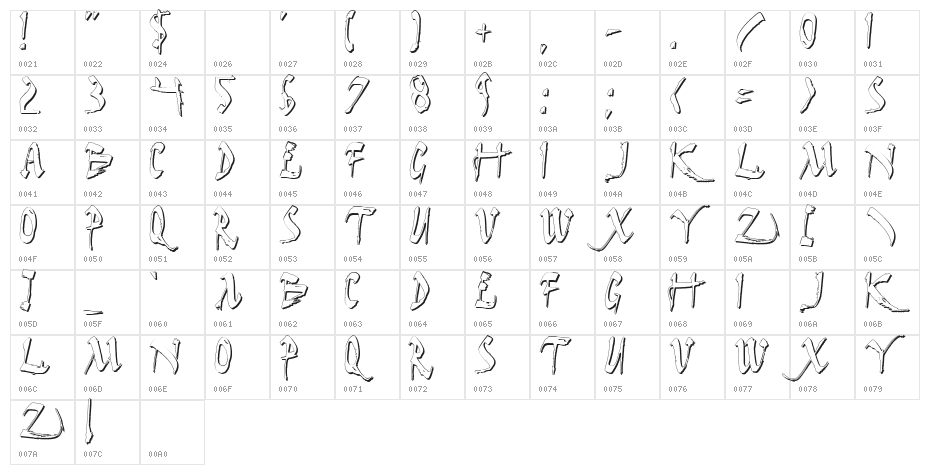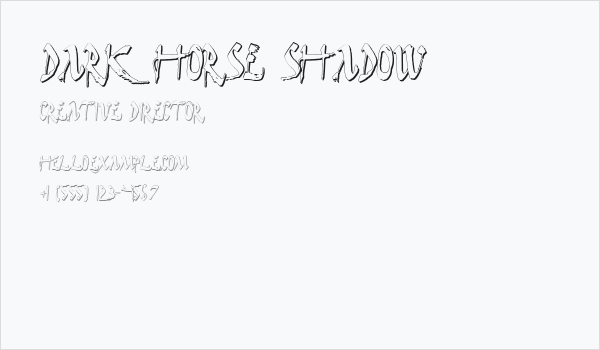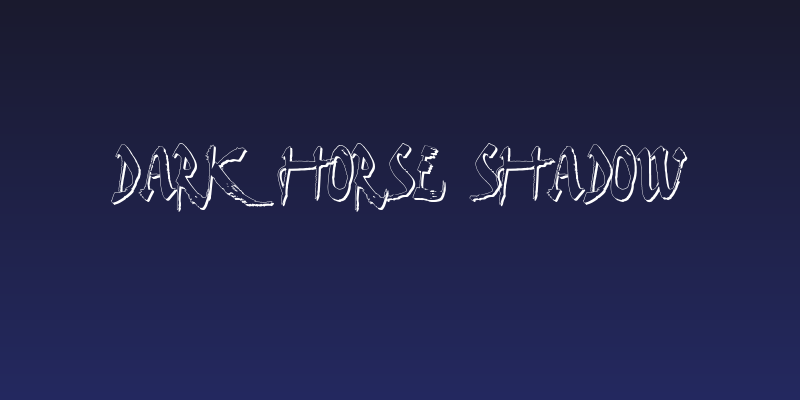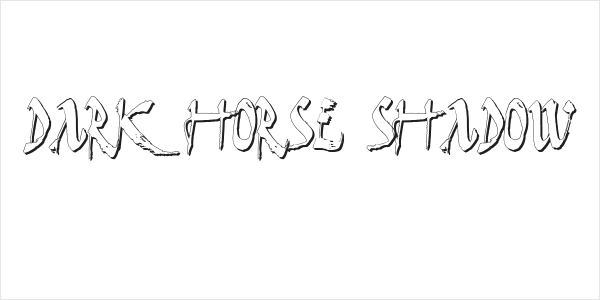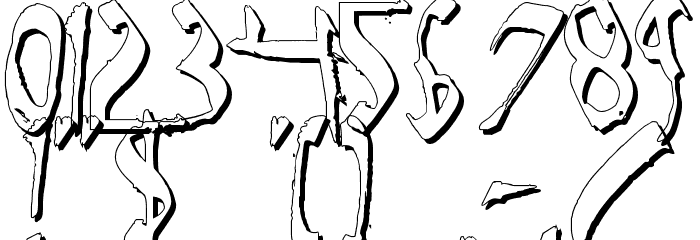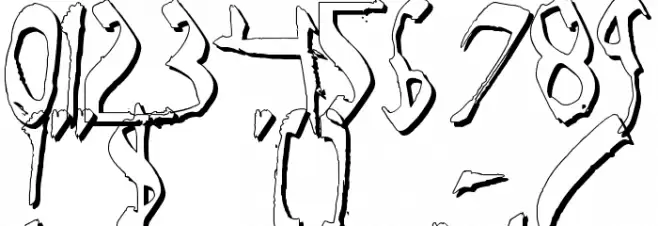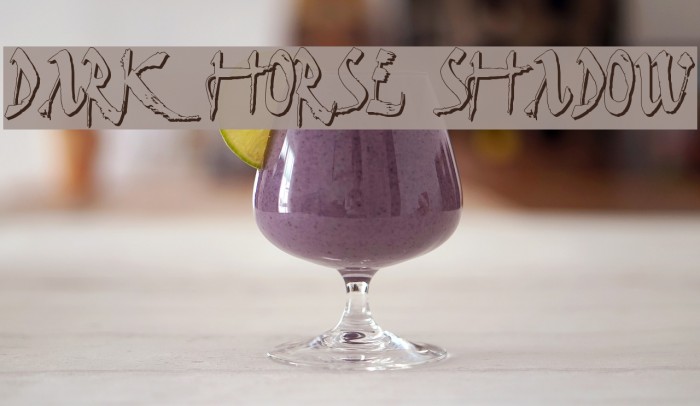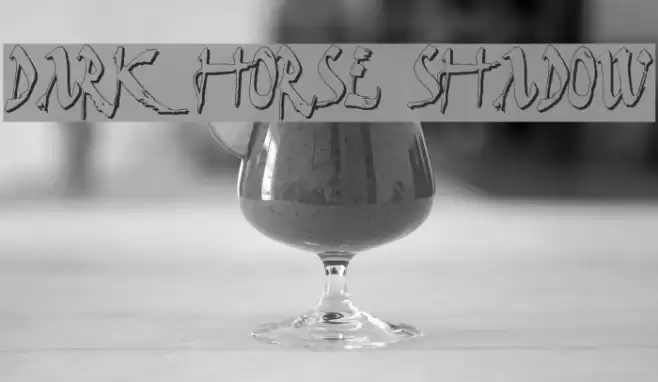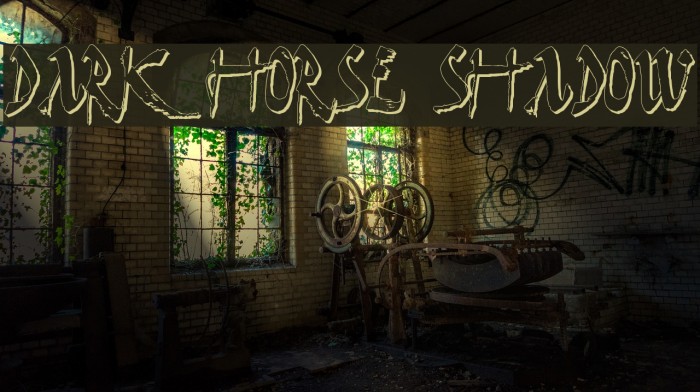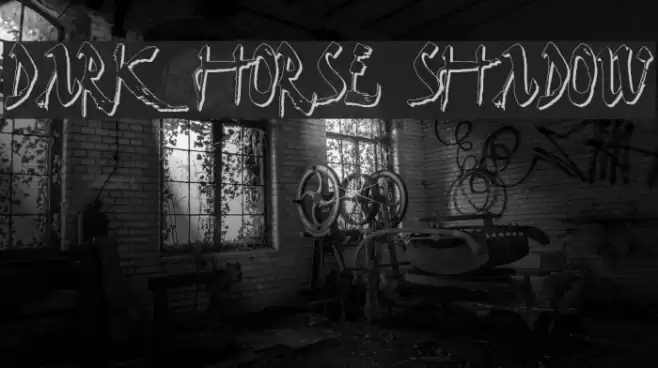
Dark Horse Shadow Font
This font features a bold, dynamic style with a distinct shadow effect that gives it a three-dimensional appearance. The letters are crafted with a brush-like texture, adding a sense of movement and energy. The uppercase and lowercase letters maintain a consistent flow, while the numbers and special characters complement the overall aesthetic. The shadow effect enhances the visual impact, making it suitable for eye-catching designs. The font's artistic flair makes it ideal for projects that require a strong, expressive typeface.
| Overall Style | Modern, Artistic |
| Proposed Projects | Ideal for posters, album covers, branding, and any design needing a bold, artistic touch. |